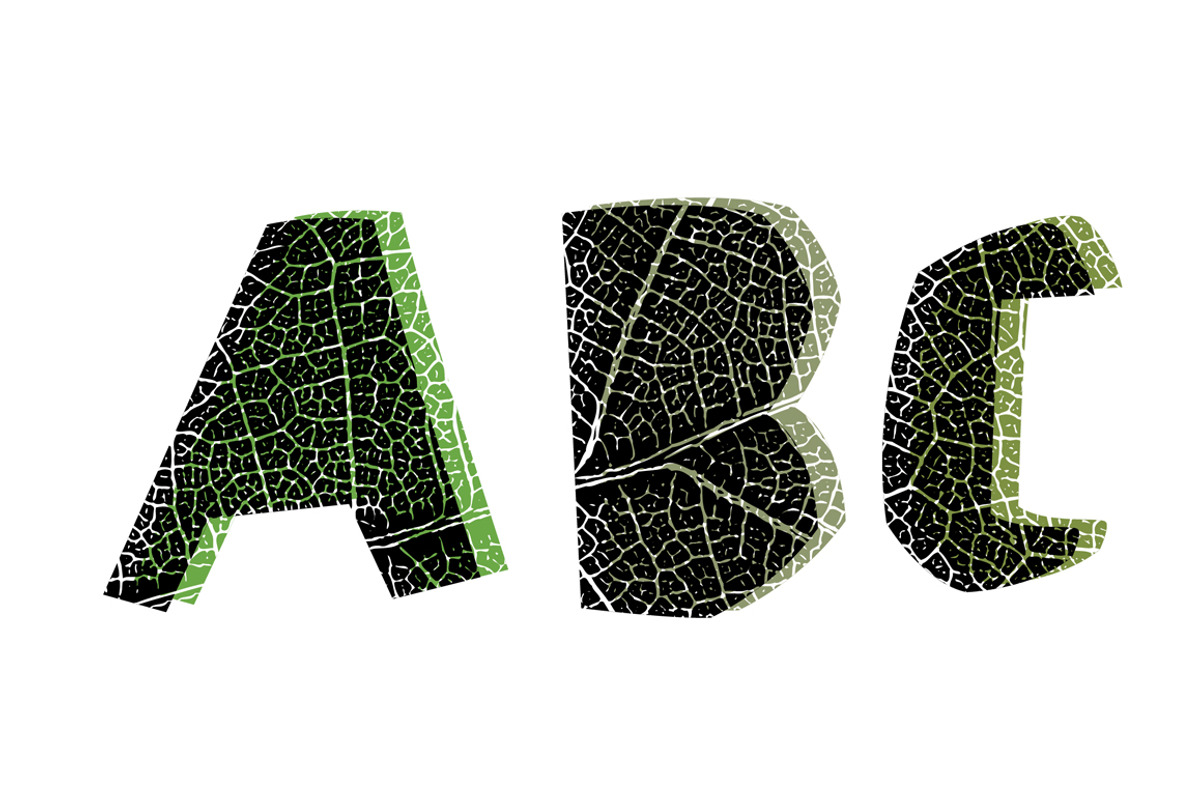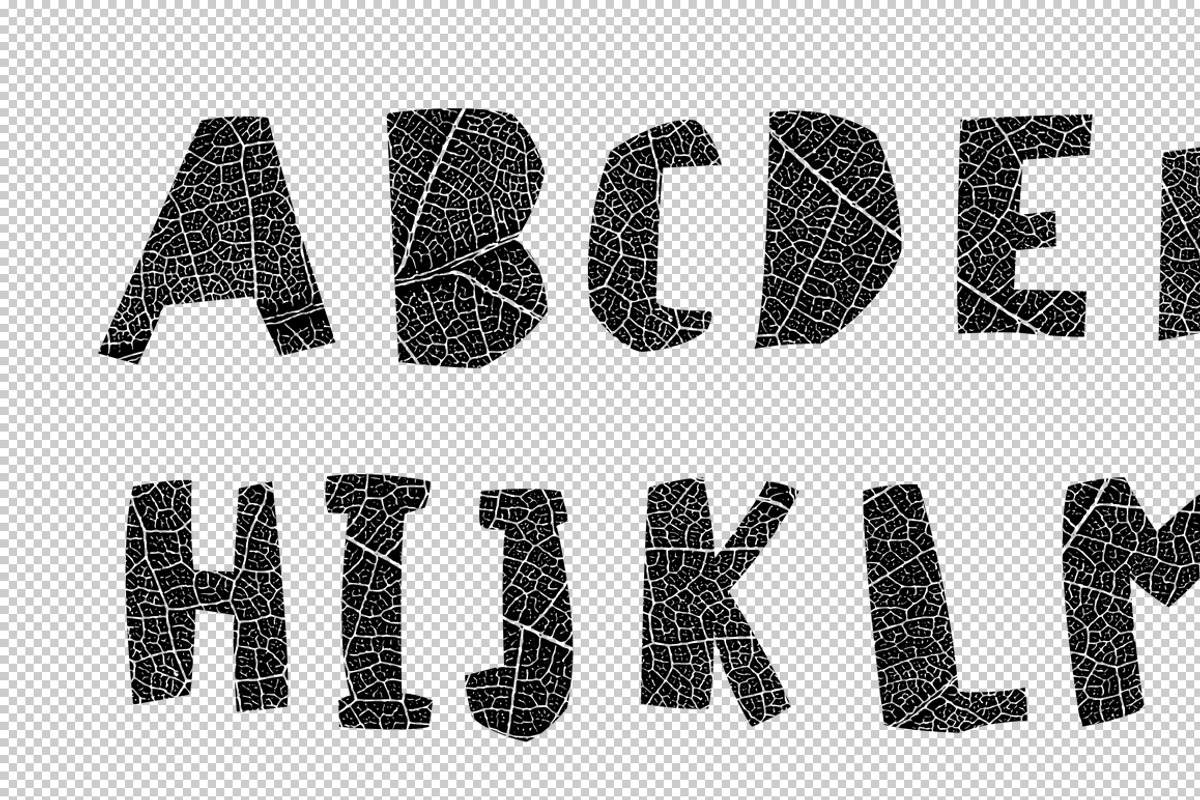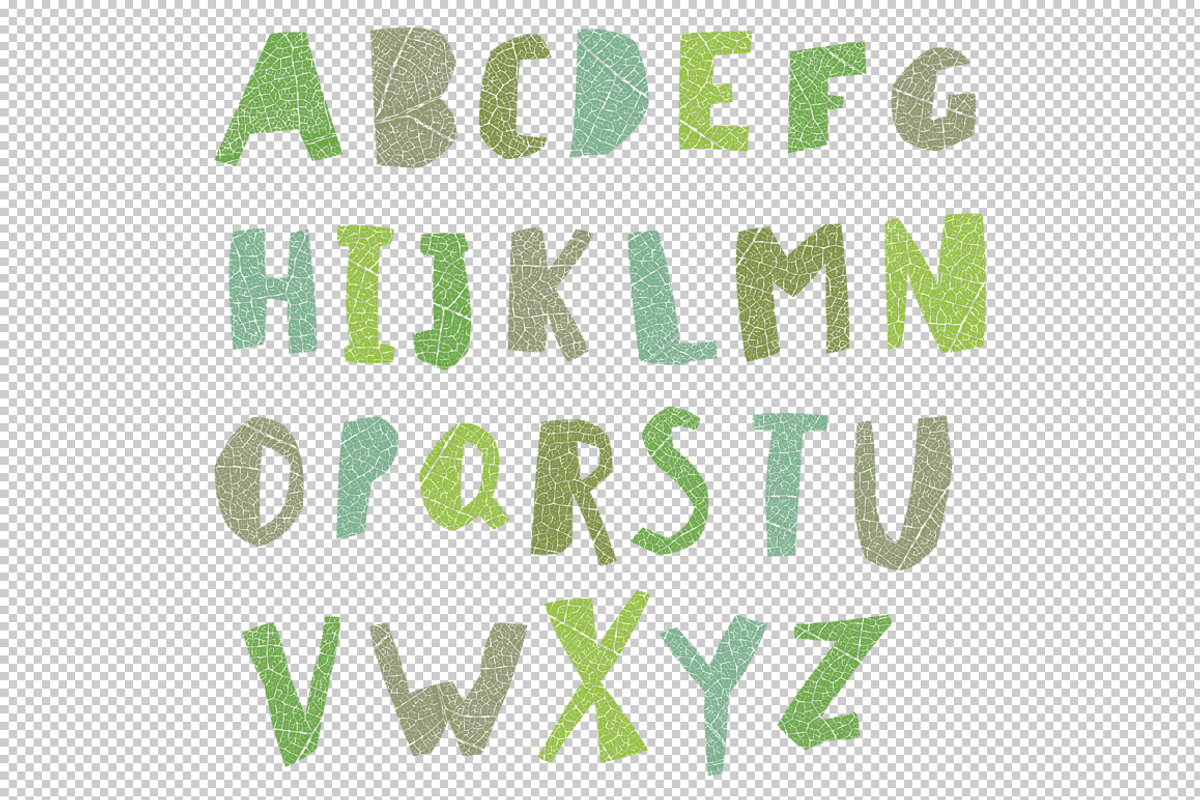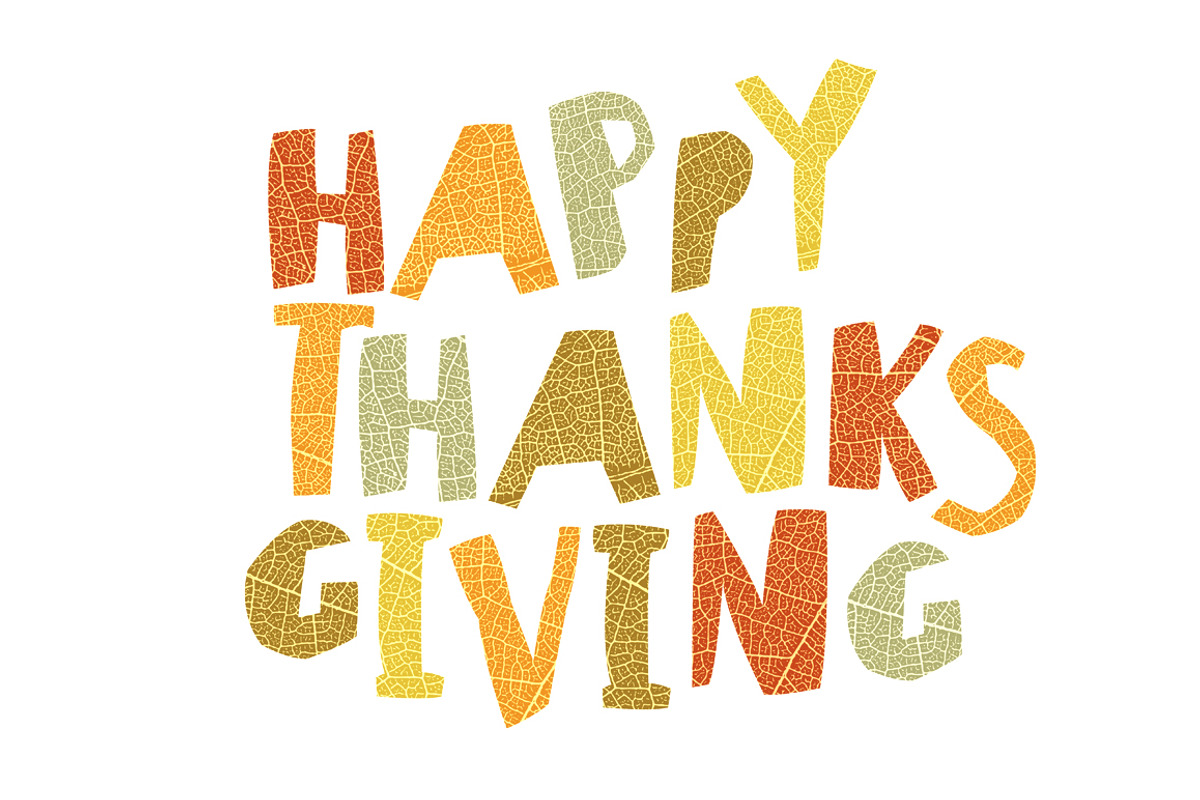
Leaf cut font. Cut-out shape
Leaf cut font. Cut-out shape by pashabo is a font selected for branding, posters, packaging, typography.
Why Leaf cut font. Cut-out shape is worth a look
Leaf cut font. Cut-out shape by pashabo fits naturally into Branding, posters, packaging, typography.